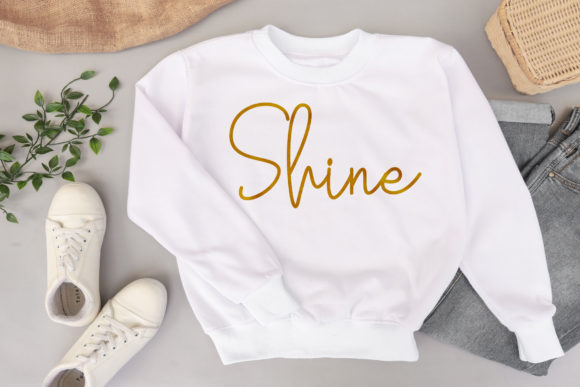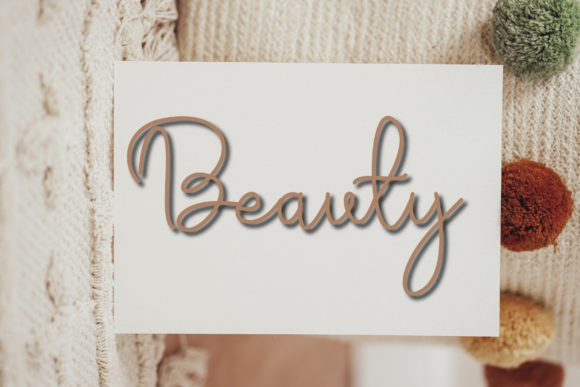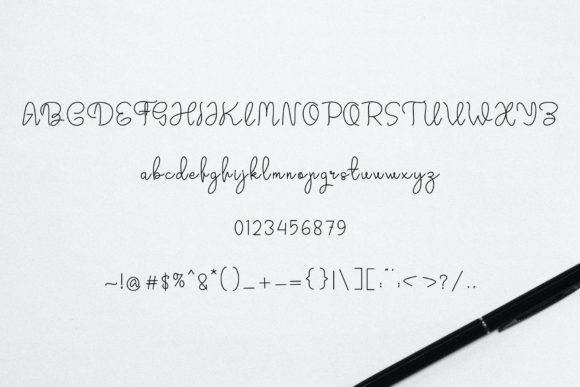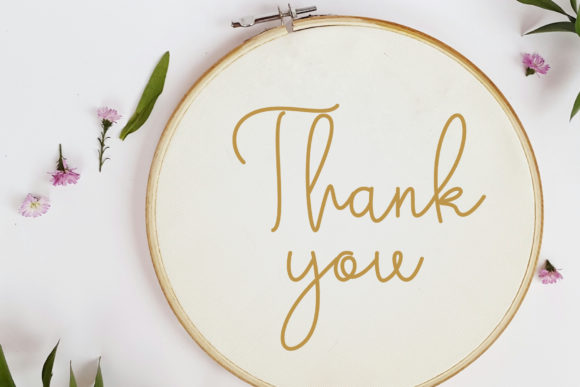
The Perfect Fit: How Fitting Font Stole My Heart
I still remember the design project that led me to discover Fitting Font. I was working on a romantic wedding invitation for a client, and I was struggling to find the perfect script font to convey the elegance and love that the couple deserved. That’s when I stumbled upon Fitting Font, and it instantly became my go-to choice. Its dainty and unique script style added a touch of romance and whimsy to the invitation, making it truly unforgettable.
An Honest Review of Fitting Font
So, what makes Fitting Font so special? Here are a few things I love about it:
- ✨ Unique and elegant script style that’s perfect for romantic designs
- 💕 Beautifully crafted to evoke a sense of love and sophistication
- 🎨 Versatile and can be used for a variety of design projects, from wedding invitations to branding and packaging
While Fitting Font is an amazing font, it’s not without its quirks. Here are a few things to keep in mind:
- 🤔 Some users may find the font a bit too delicate for certain design projects
- ⚠️ May not be suitable for body text or long blocks of text due to its script style
The Story Behind Fitting Font
Fitting Font was designed with love and care by a talented type designer who wanted to create a font that would evoke a sense of romance and sophistication. The designer’s inspiration came from traditional calligraphy and hand-lettering, with a modern twist to make it more versatile and accessible.
| Font Name | Fitting Font |
| Author | Designvector10 |
| What is Fitting Font best used for? | Fitting Font is perfect for romantic designs, such as wedding invitations, love letters, and branding projects that require a touch of elegance and sophistication. |
| Is Fitting Font suitable for body text? | While Fitting Font is highly legible, it’s not recommended for body text or long blocks of text due to its script style. It’s best used for headlines, titles, and short paragraphs. |